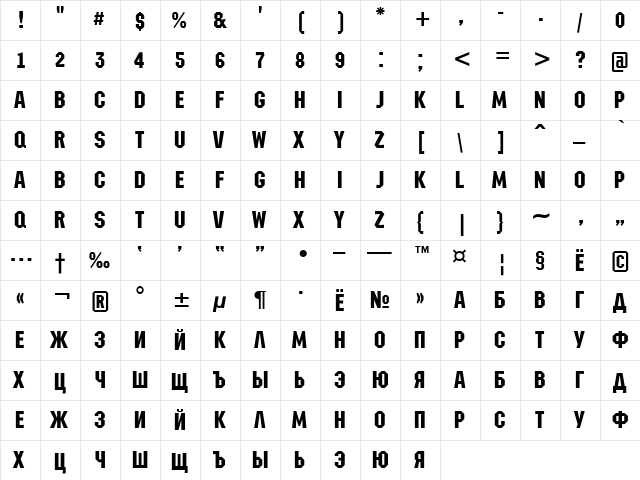
a_MachinaNova Medium Font Preview
a_MachinaNova Medium
a_MachinaNova Medium Font Details
Design Context for a_MachinaNova Typeface
a_MachinaNova is a composed and adaptable typeface that performs quietly and consistently across a wide range of design contexts.